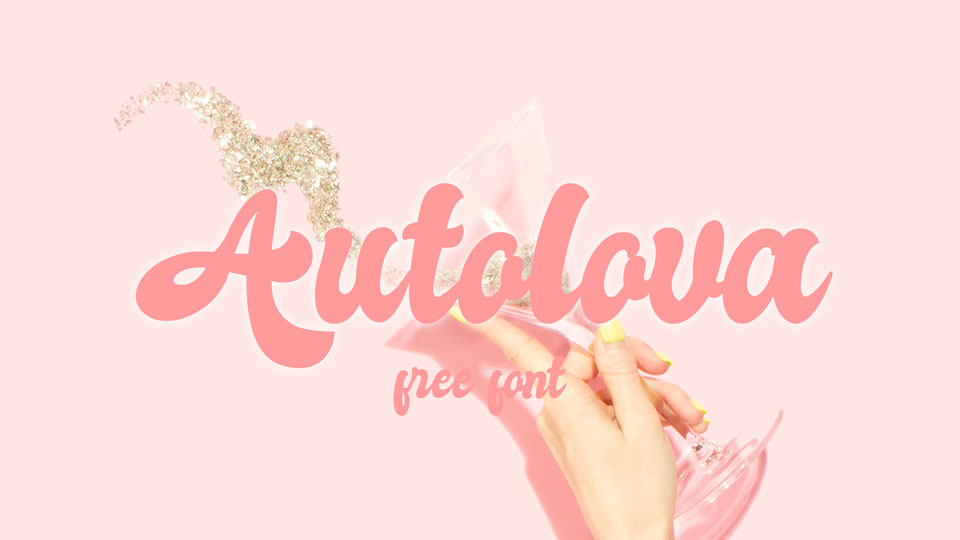
Autolova a free hand lettered bold vintage script. It contains uppercase and lowercase letters, nmbers, sumbols, alternates and supports multilanguage. Great for all kind vintage designs, logos and branding, posters and prints, social media and much more.